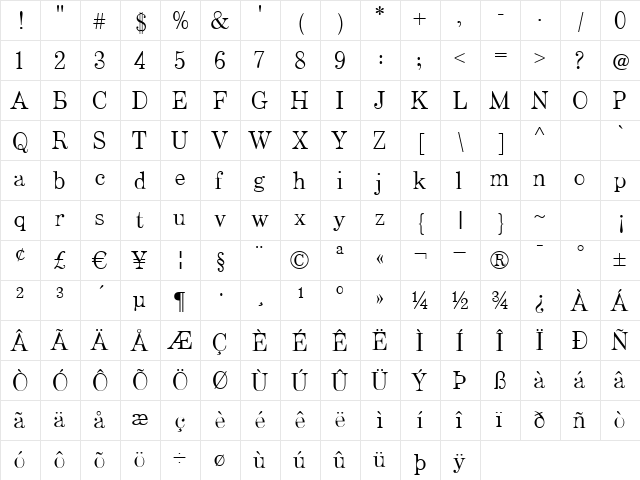
Artefact Regular
Design Context for Artefact Typeface
Artefact takes a measured approach to typography — its balanced proportions and neutral character make it a reliable workhorse for both digital and print work.